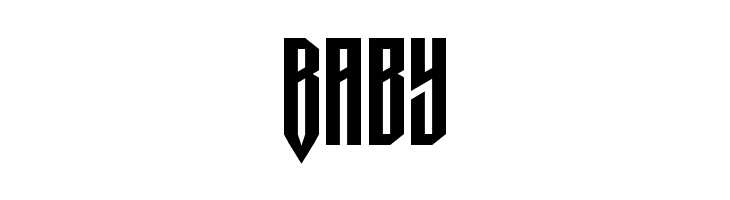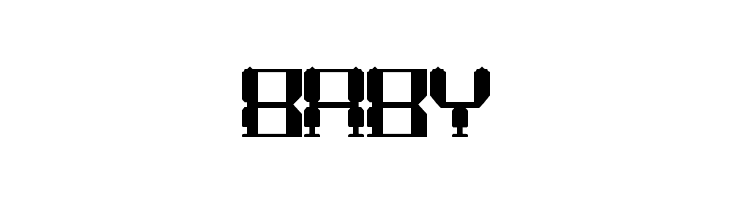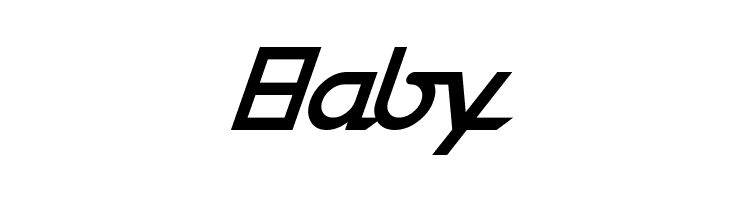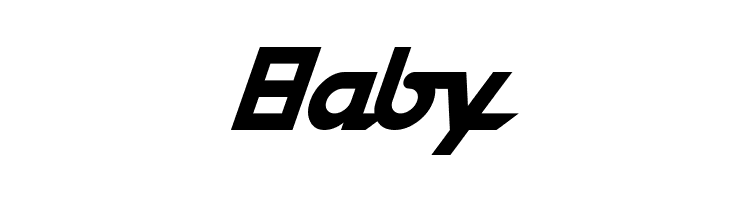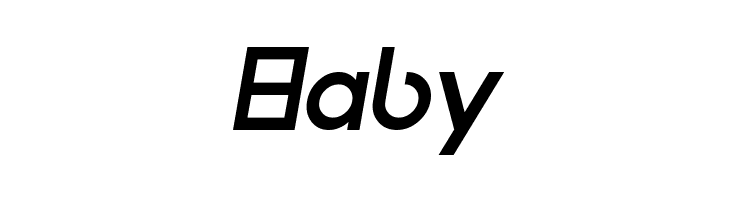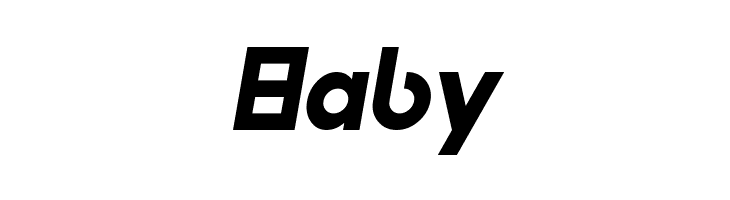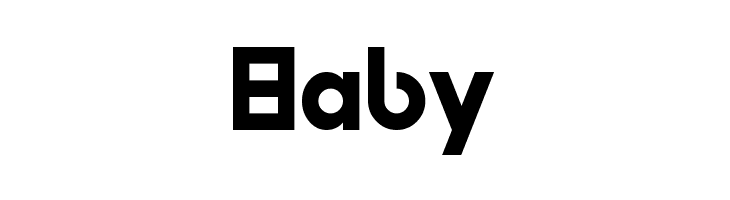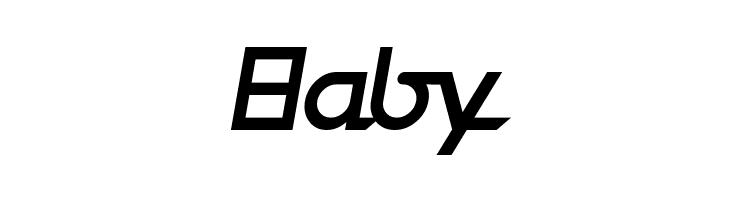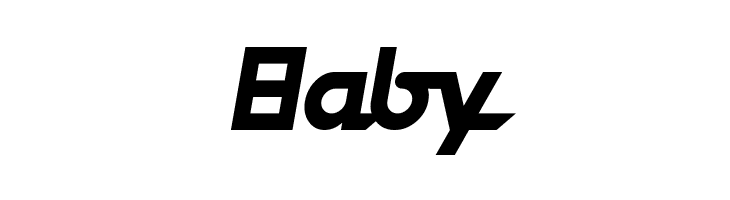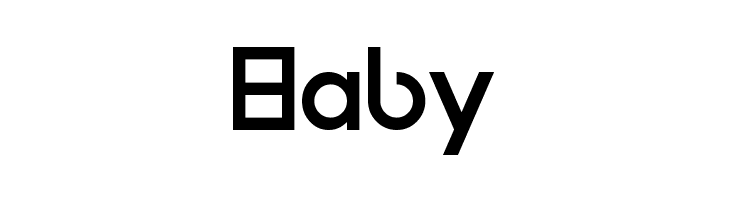
A bold, playful font with a hand-drawn, slightly irregular style.
A bold, angular font with a dynamic, italicized style.
A dynamic and elegant cursive script font with bold, flowing letterforms.
A playful, casual handwritten font with smooth, flowing lines.
A playful, casual handwritten font with smooth, flowing lines and moderate contrast.
A bold, playful font with a 3D striped effect, perfect for adventurous themes.
A playful, cursive font with interconnected letters and a whimsical style.
A bold, hollow font with a dynamic and adventurous style.
A bold, cursive font with a dynamic and flowing style.
A bold, vintage-style font with thick strokes and decorative elements.
A bold, brush-style font with dynamic, hand-drawn strokes.
A bold, geometric font with angular, futuristic styling.
A bold, modern font with geometric and futuristic design elements.
A bold, three-dimensional font with a dynamic and adventurous style.
A bold, playful, hand-drawn font with a casual and informal style.
An elegant, flowing script font with intricate loops and swashes.
A dynamic and flowing script font with elegant, cursive letterforms.
A bold, flowing script font with elegant curves and dynamic movement.
A bold, geometric font with a futuristic and adventurous style.
A bold, high-contrast serif font with a classic and adventurous style.
A bold, brush-style font with an adventurous and expressive character.
A flowing, cursive script font with elegant, connected characters.
A bold, expressive handwritten font with dynamic brush strokes and high contrast.
A bold, playful italic font with rounded, flowing forms and a vintage flair.
A bold, playful font with rounded, thick strokes and a whimsical style.
A bold, gothic-inspired font with sharp, angular edges and high contrast.
A playful and dynamic font with bold, flowing characters and a whimsical style.